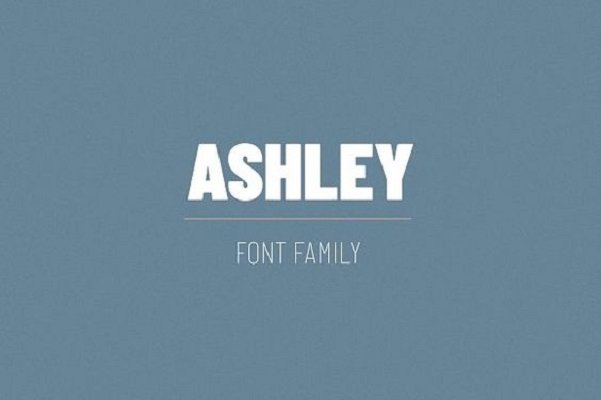
Ashley Font Family
Ashley is a clean and modern all-caps sans serif typeface. Ashley is a family of 16 sans serif weights designed with a print look in mind.Ashley is extremely versatile on its own. The font family also works great as a secondary font to go along with existing logos and branding.
Ashley is the perfect font for publishing, titles, books, magazines and corporate design, logotypes, branding, packaging, etc.